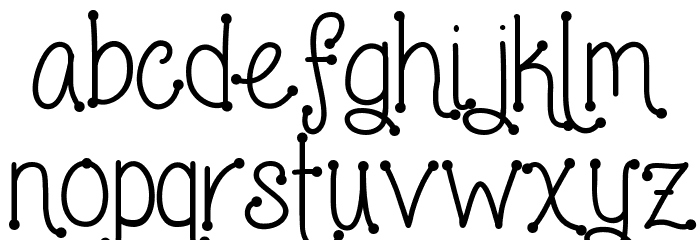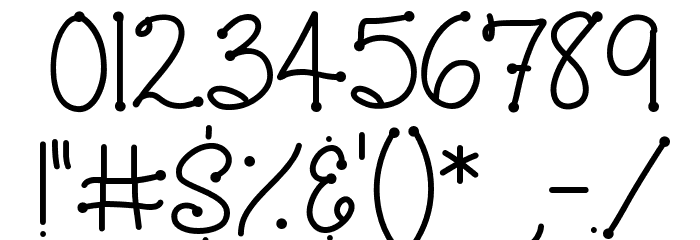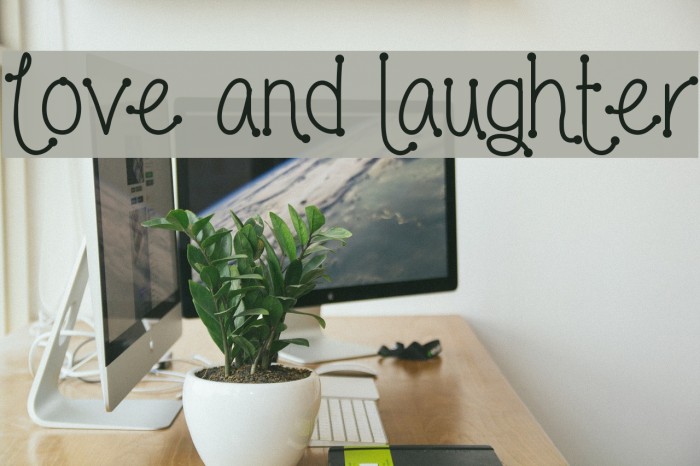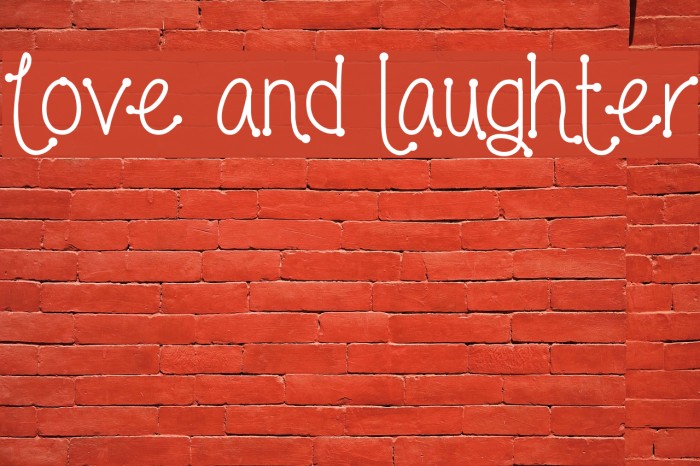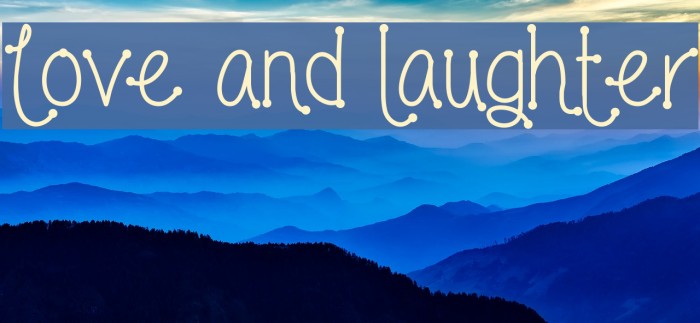
Love and laughter Font
This playful and whimsical font features a unique design with loops and curls at the end of each character, giving it a lively and cheerful appearance. The letters are connected with small dots, adding a decorative touch that enhances its charm. The font maintains a consistent stroke width, creating a harmonious and balanced look. Its playful nature makes it ideal for projects that require a fun and engaging visual element. The characters are well-spaced, ensuring readability while maintaining its distinctive style.
A playful, whimsical font with loops, curls, and decorative dots.
- Proposed Projects: Ideal for children's books, greeting cards, playful branding, and party invitations.
- Overall Style: Whimsical
- Use Case: Logos, Invitations, Greeting Cards